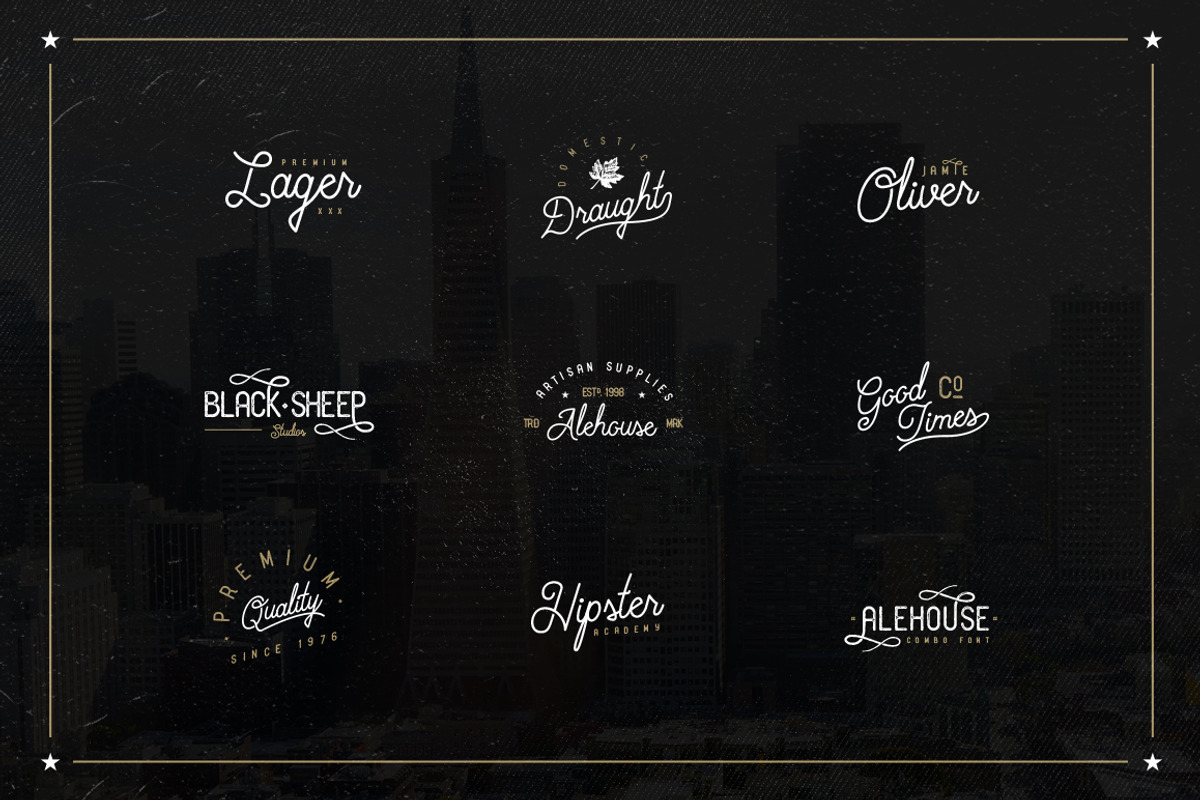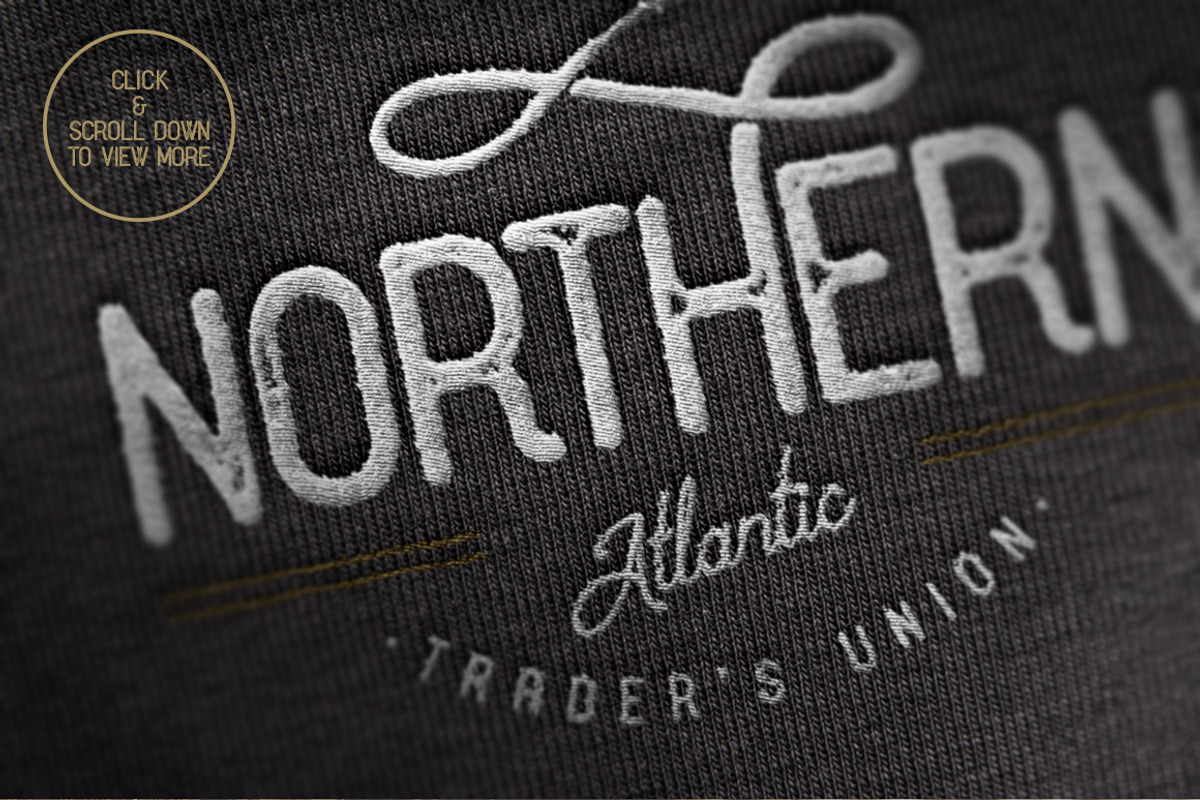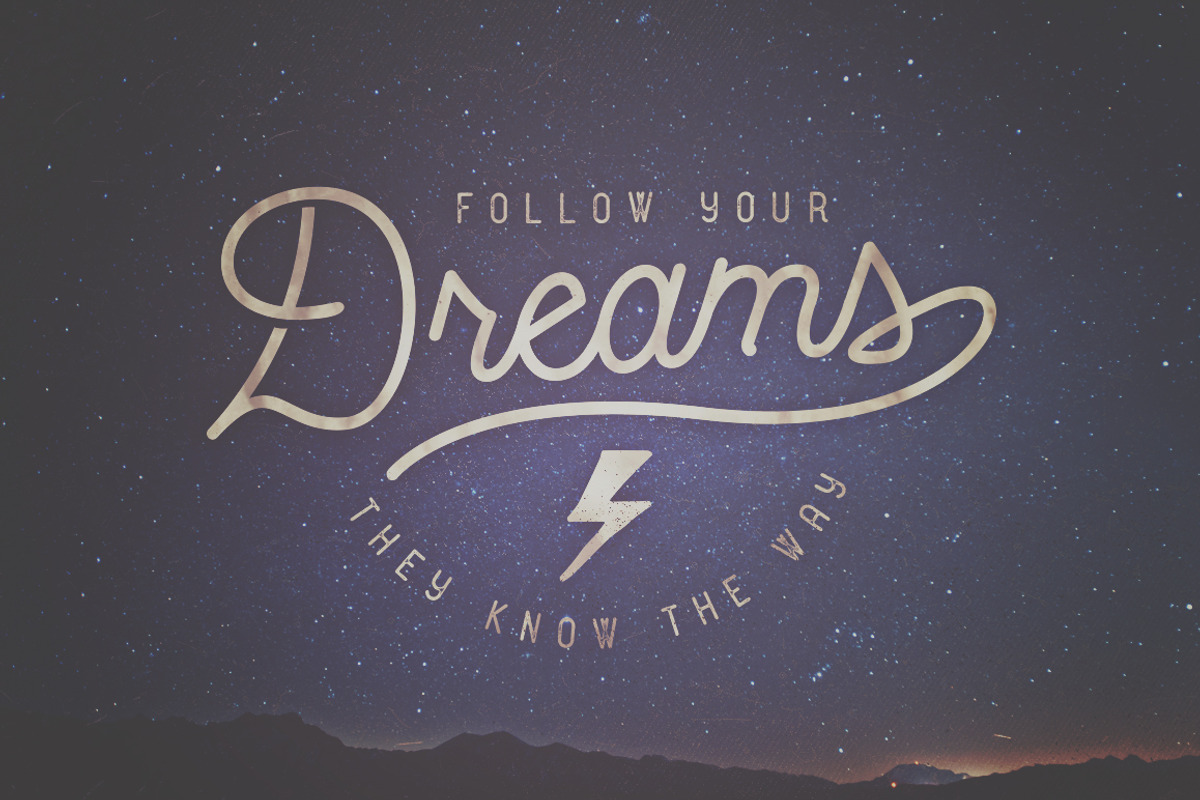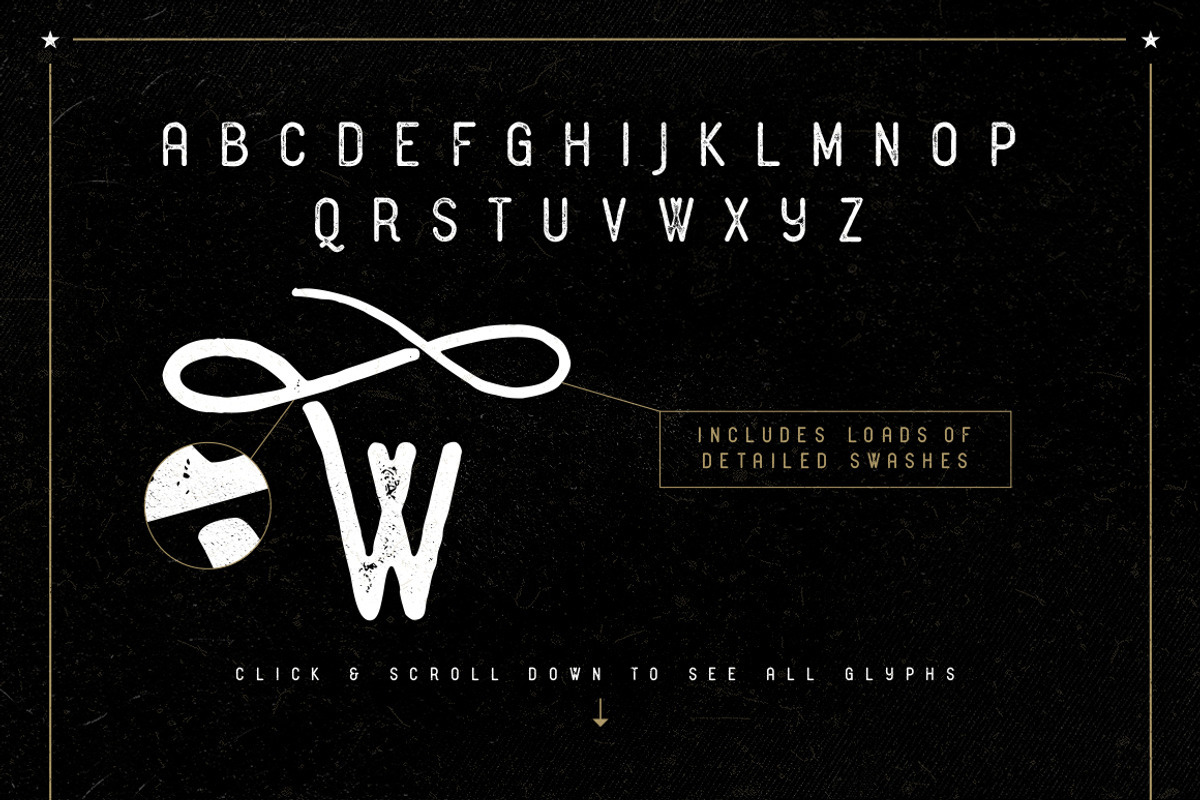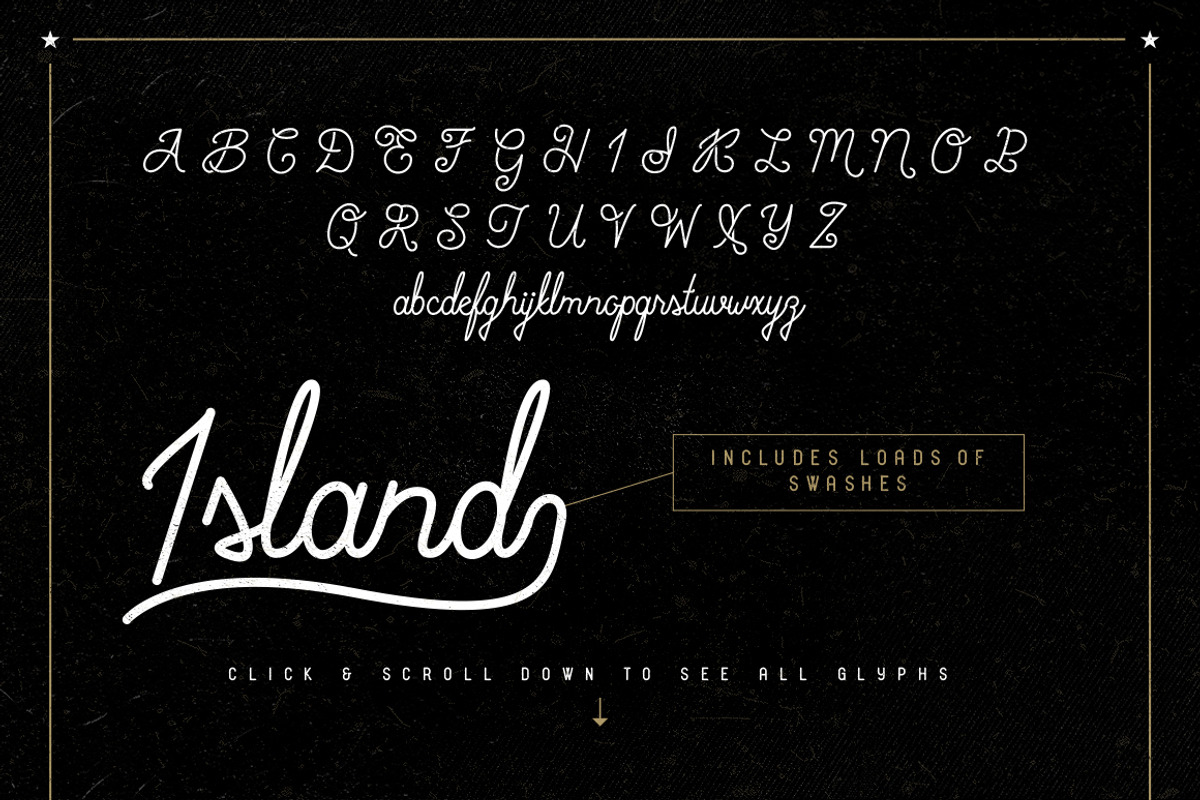
Alehouse Combo Font
Alehouse Combo Font by Vintage Type Company is a font selected for branding, posters, packaging, typography.
- Both Alehouse Script & Sans come loaded with swash alternatives to flourish up your type treatments as well as multilingual support.
Why Alehouse Combo Font is worth a look
Alehouse Combo Font by Vintage Type Company fits naturally into Branding, posters, packaging, typography.